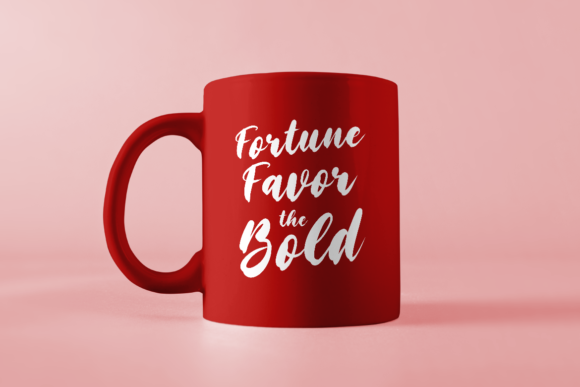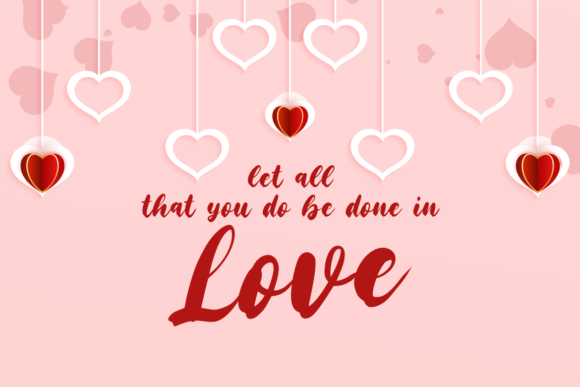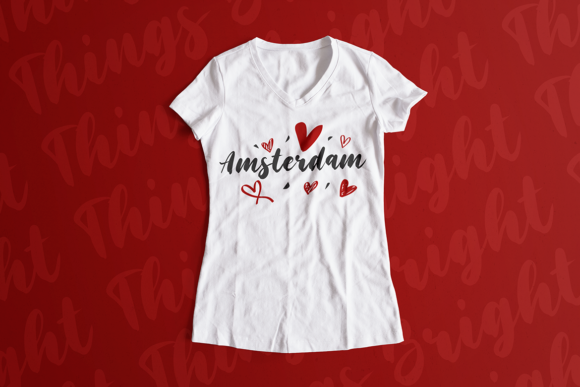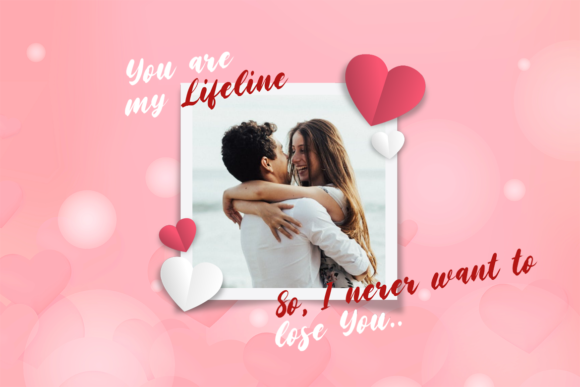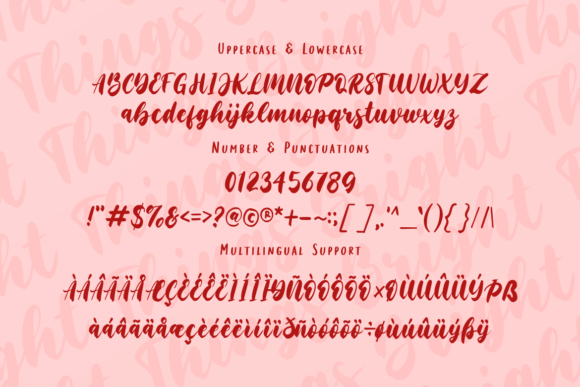
Bright Things Font
Bright Things is a fun and bold handwritten font. Whether you’re looking for a font for Instagram or a bold calligraphy script for a DIY project, a greeting card, this font will turn any creative idea into a true work of art!